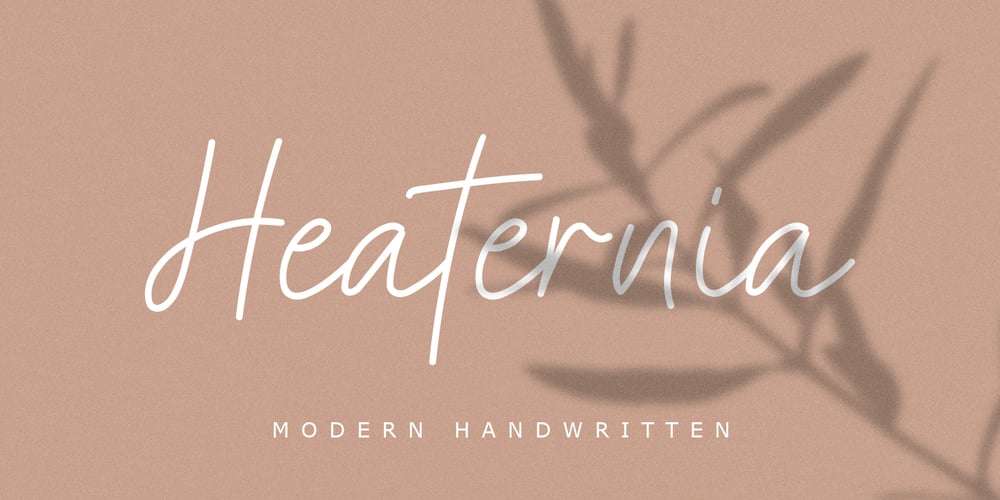
Heaternia Font Family was designed by Muhammad Mujibulloh and published by MJB Letters. Heaternia contains 1 styles and family package options. Heaternia is a very natural handwritten font, made with a very careful touch to get the natural impression of each character. This font is very suitable for use in various needs such as business cards, invitation designs, brochures, stationery, packaging, branding, handicrafts, and others.